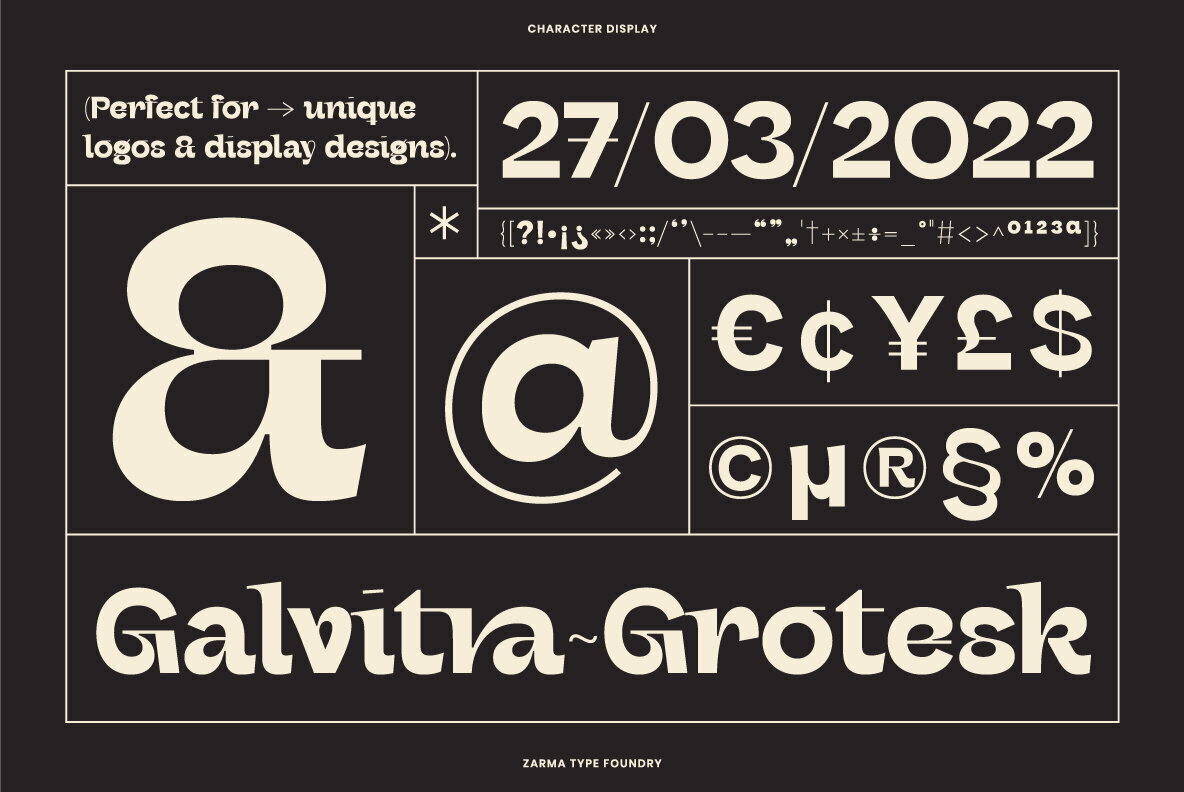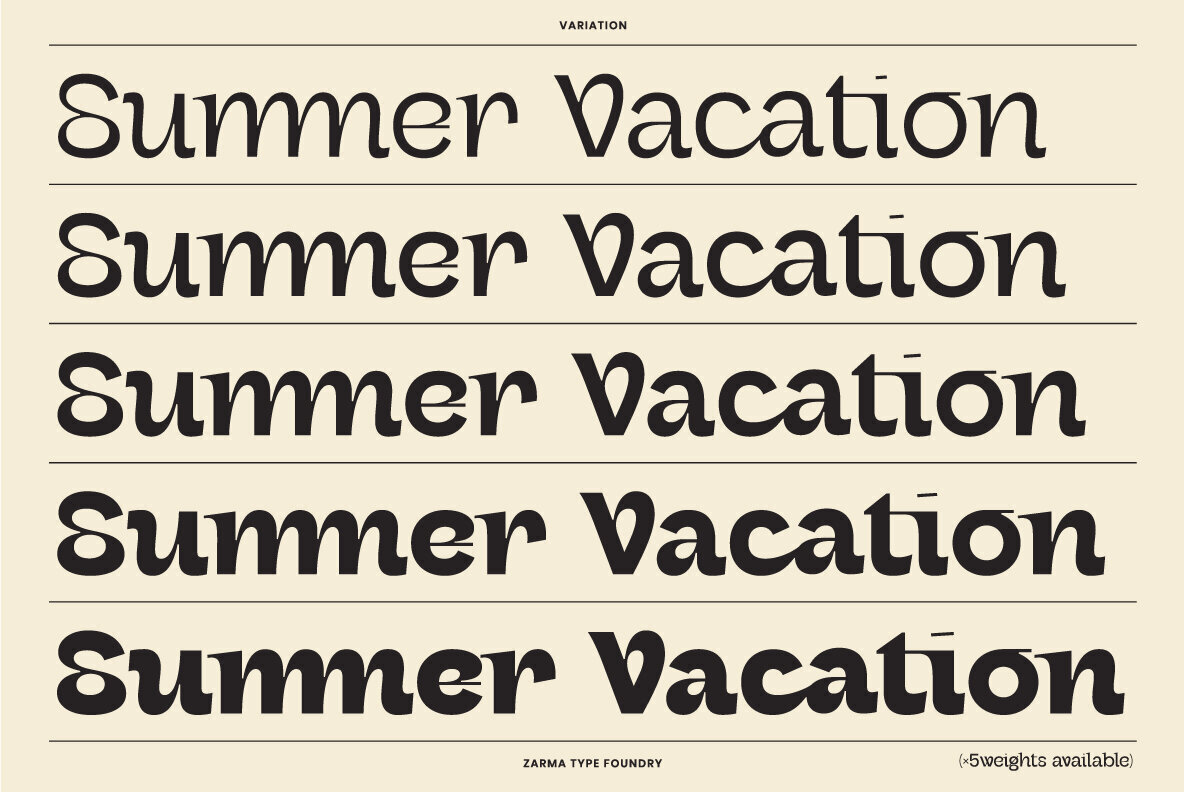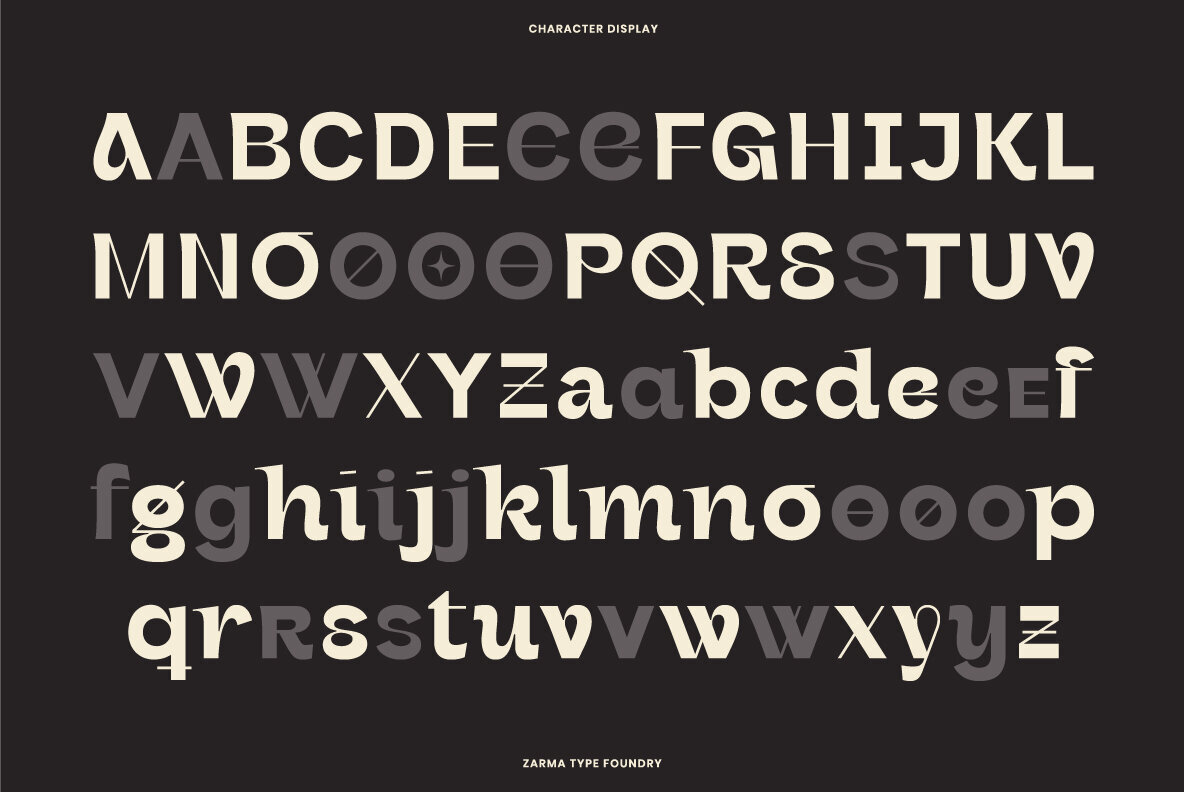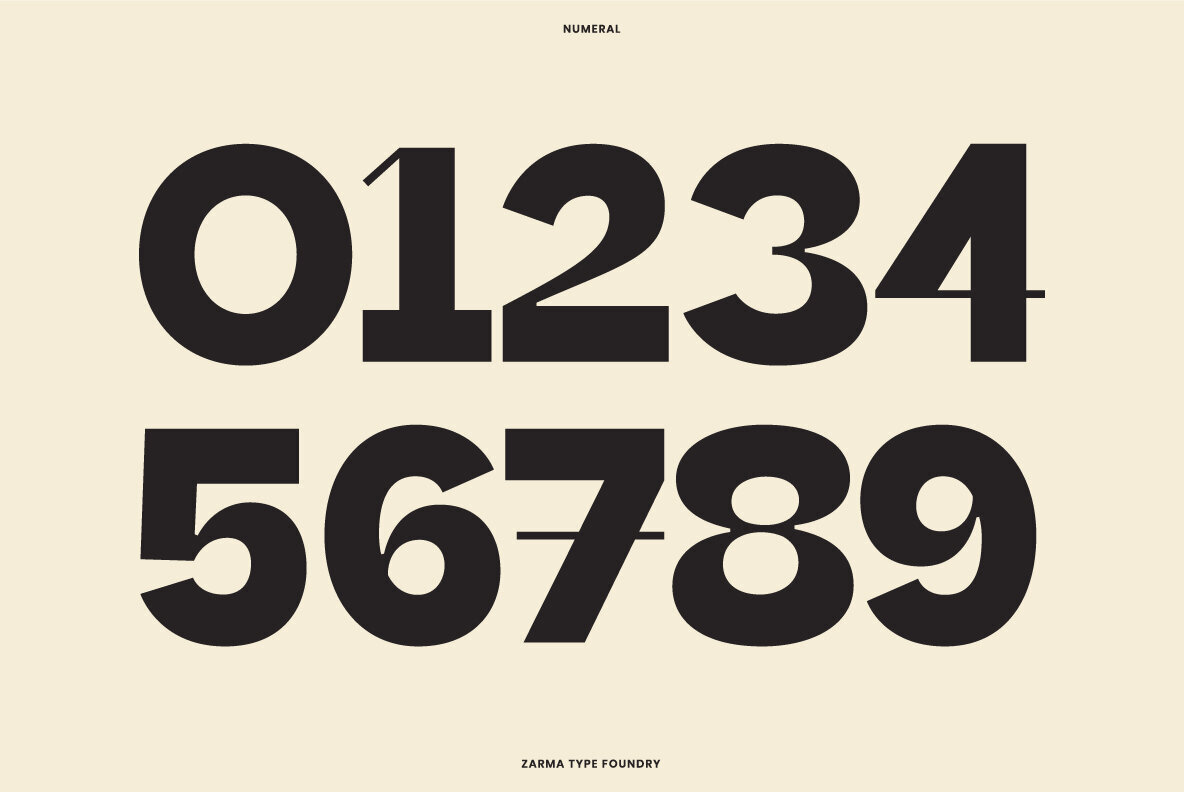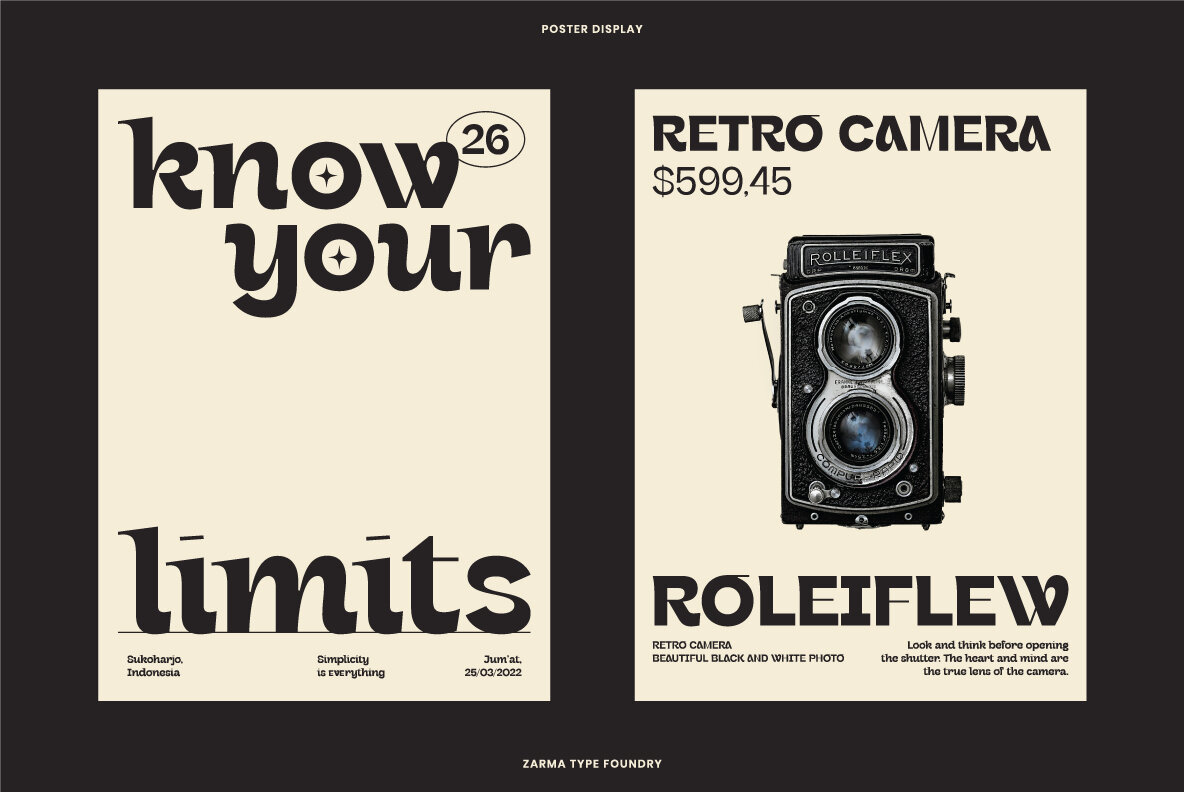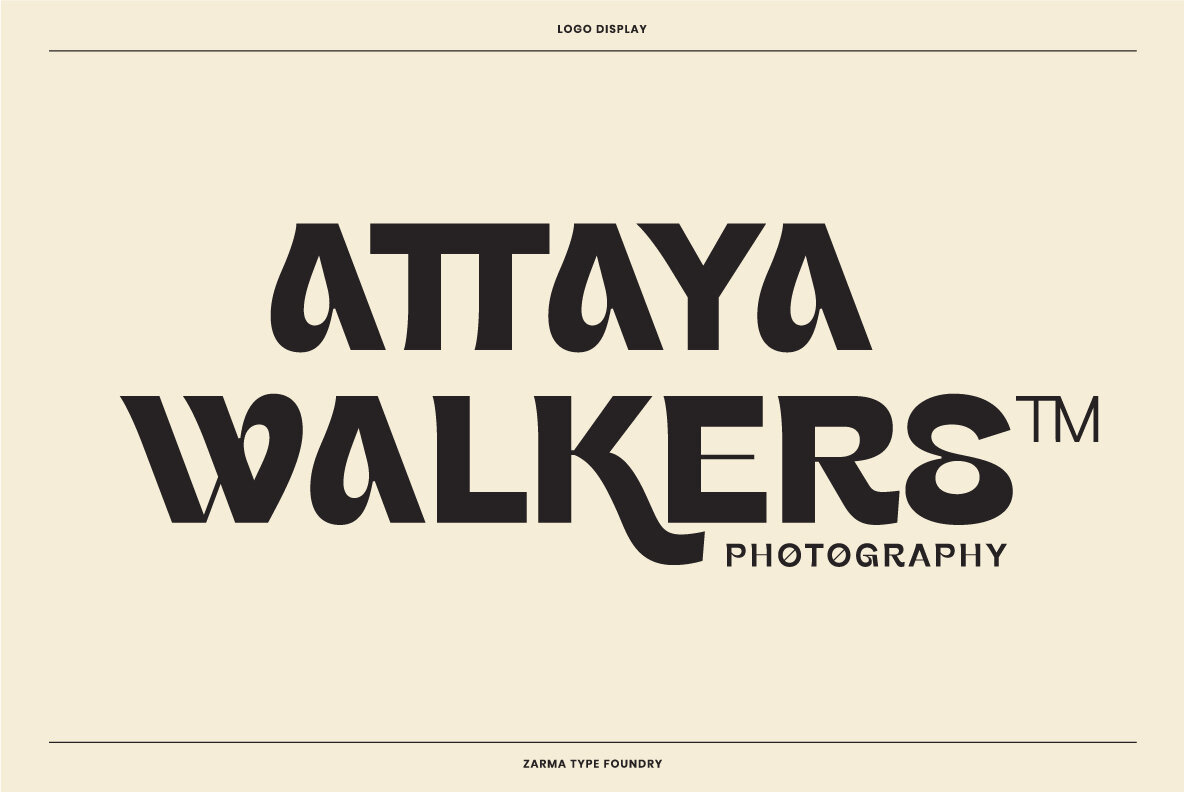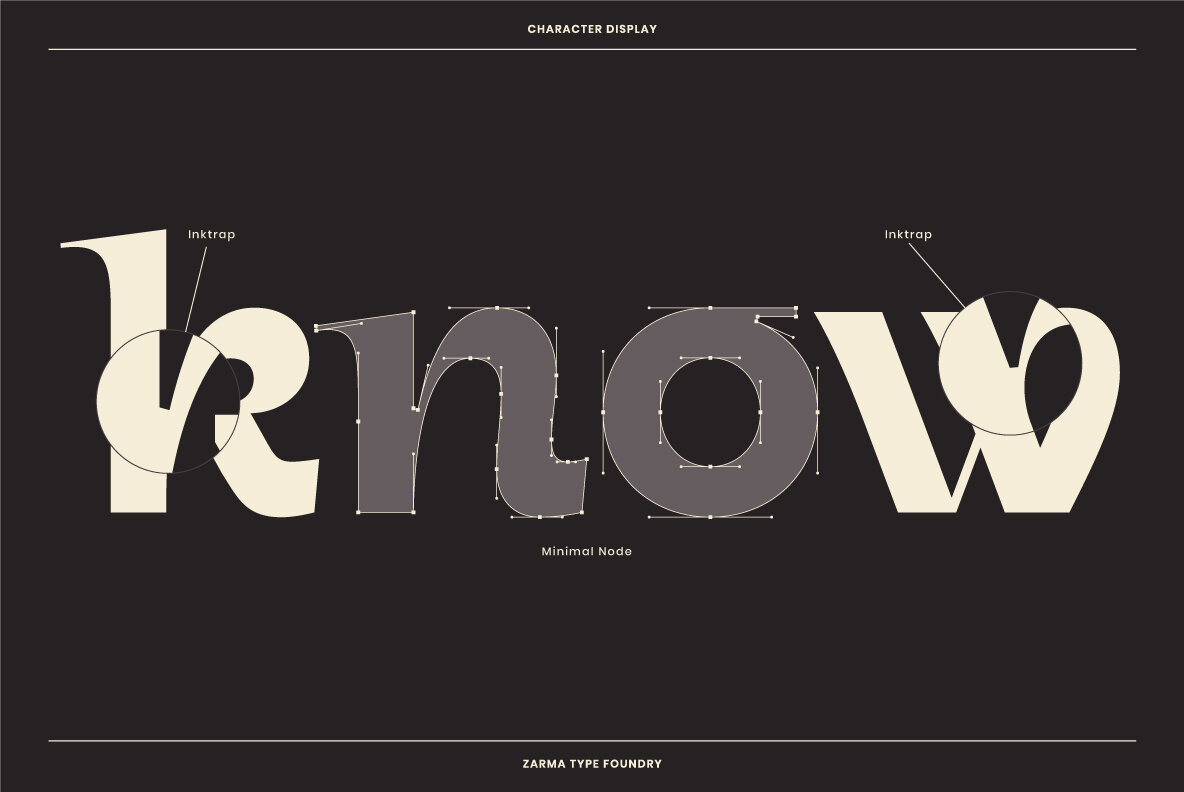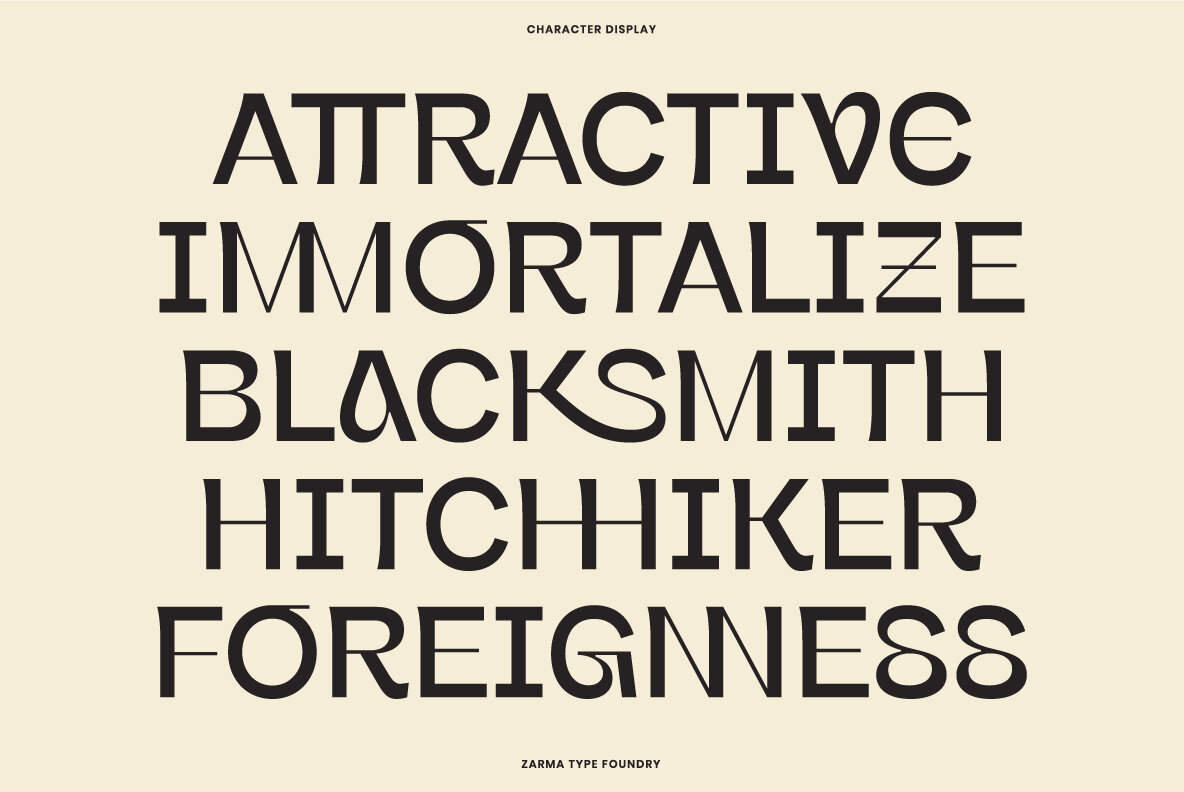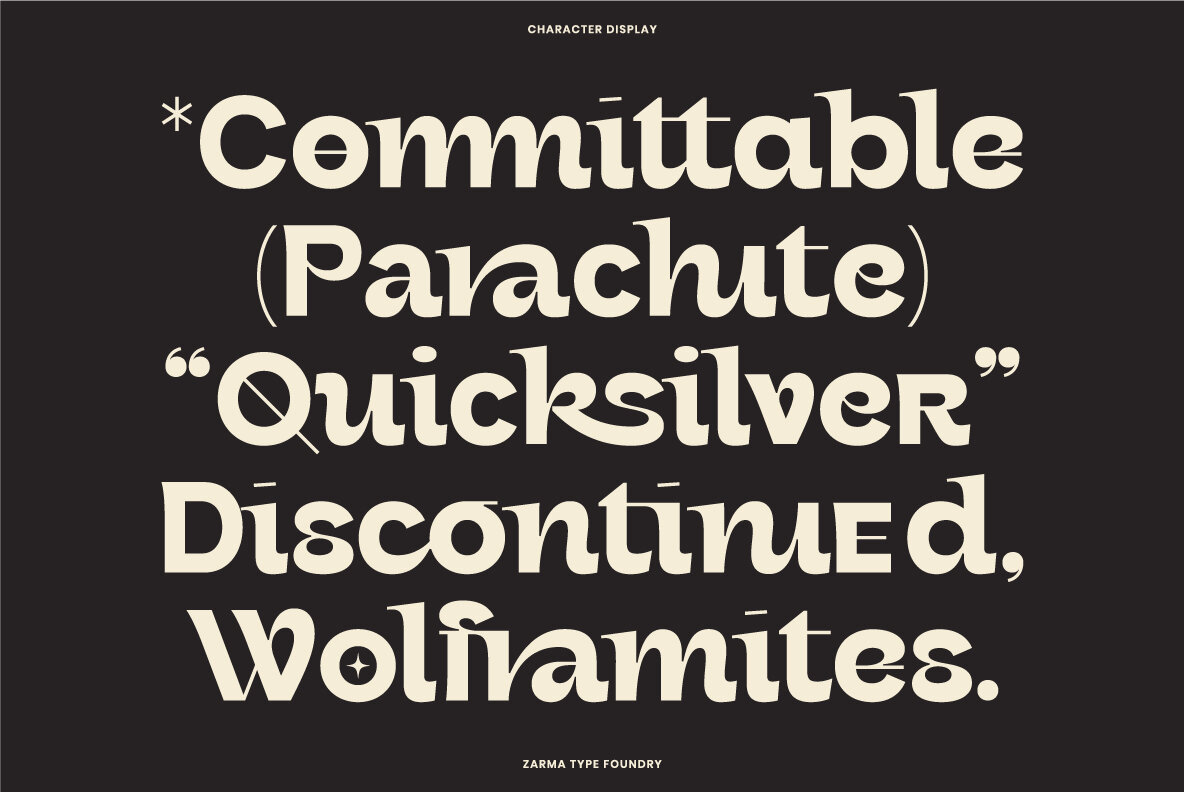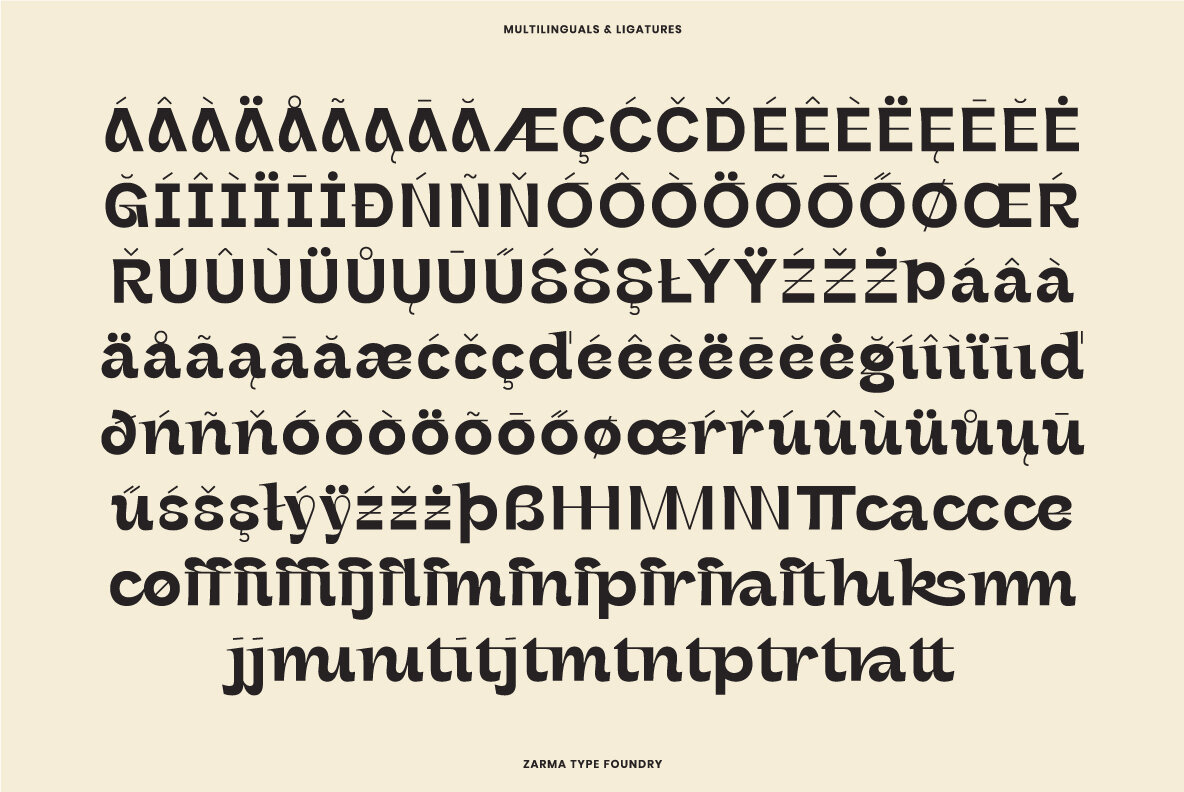
Galvitra Font
Galvitra is a modern display typeface that takes on the grotesk style. With 5 weights, it has opentype features to give your design an edge.
Features :
- Number & Punctuation
- Ligatures & Stylistic Alternates